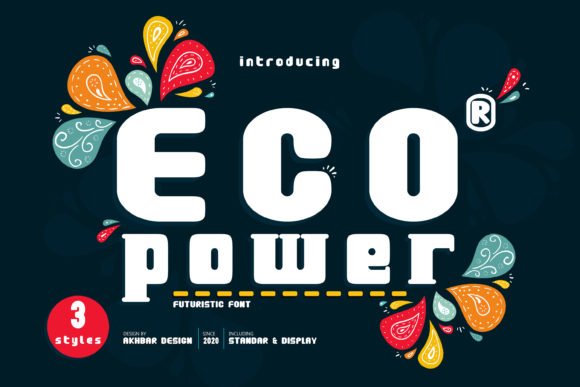
Introduction to Eco Power Font
Eco Power is a truly outstanding display font.
The great diversity of weights provides a variety of choices that will help you find the best typographic solution for a wide range of projects .
Key Features of Eco Power Font
Why Choose Eco Power Font?
Eco Power Font offers exceptional quality and versatility, making it a valuable addition to your design toolkit. Whether you’re creating for personal projects or commercial use, Eco Power Font delivers professional results.